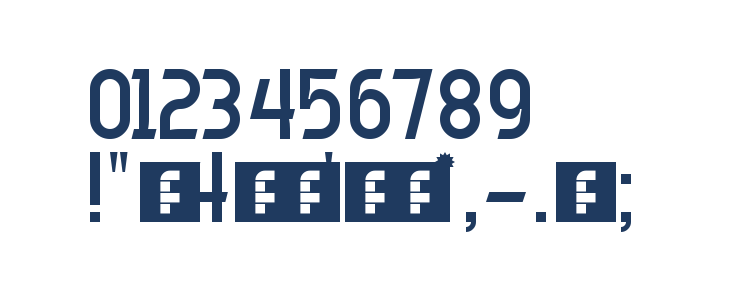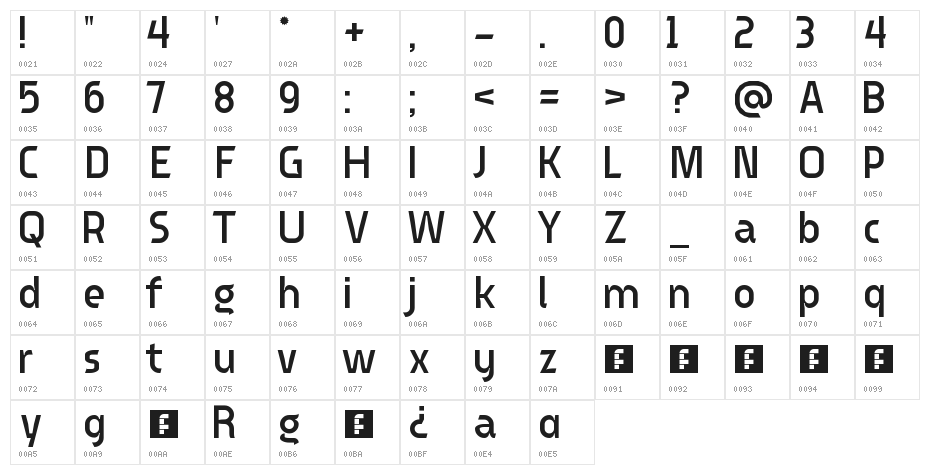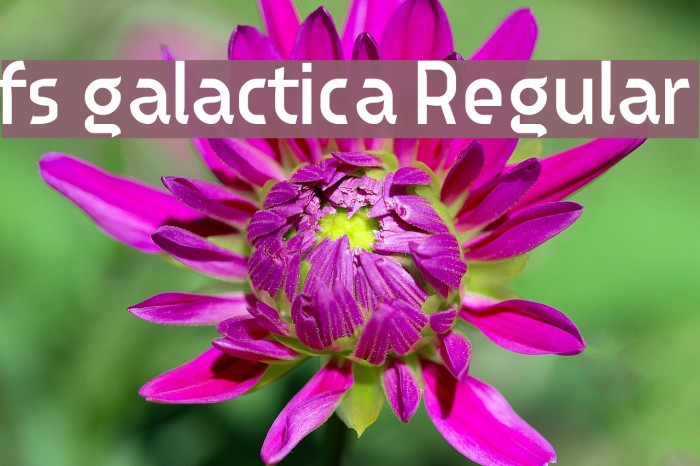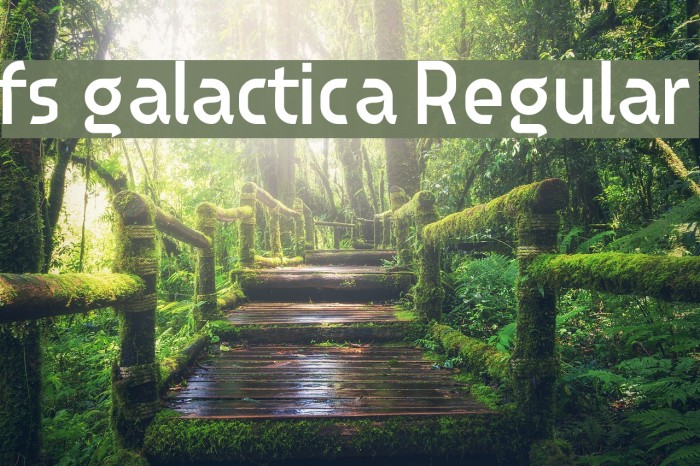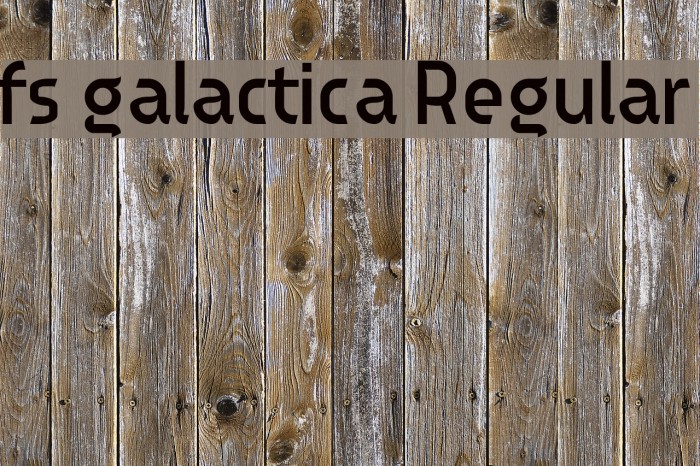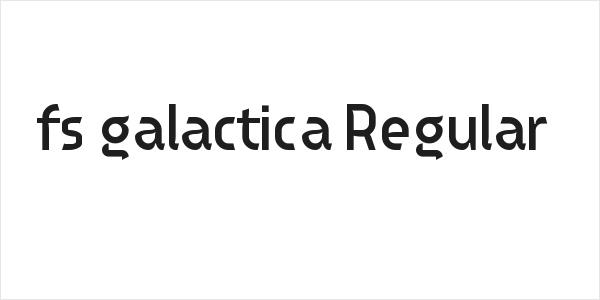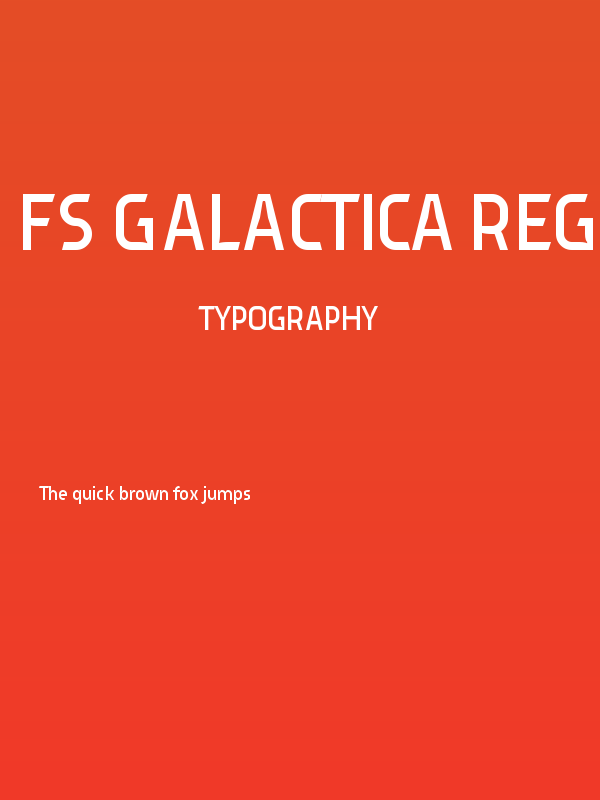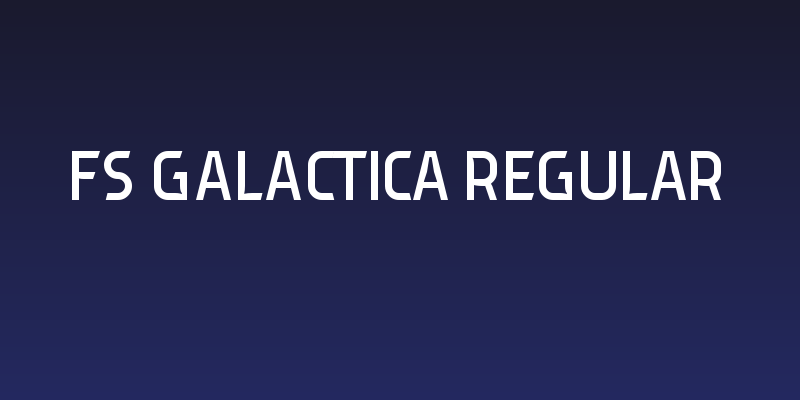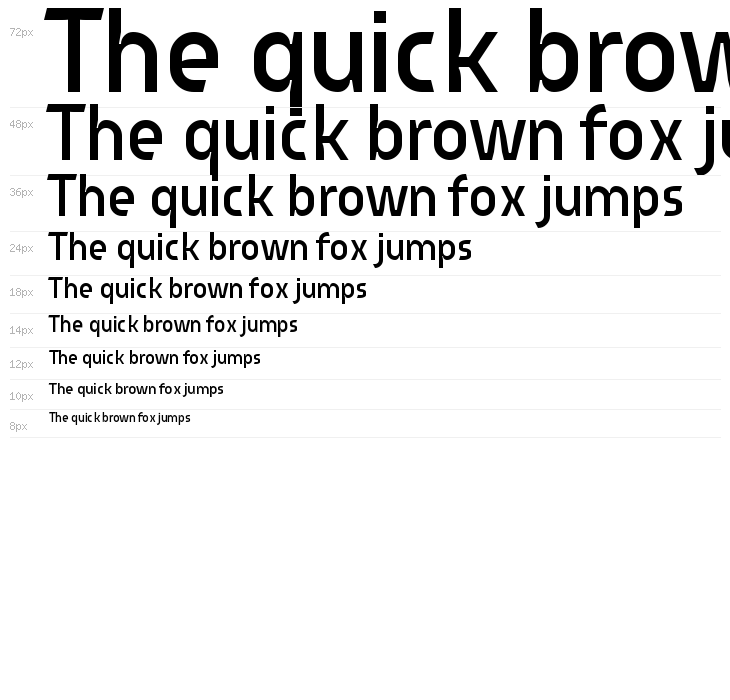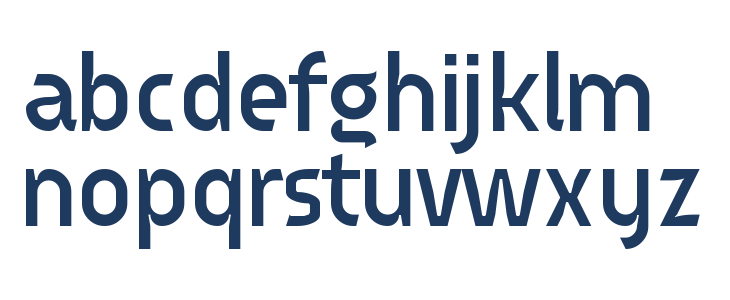
fs galactica Regular Font
fs galactica Regular Description
This font features a modern and clean sans-serif design with a geometric structure. The characters are well-balanced with a consistent stroke width, providing a uniform appearance. The uppercase letters have a slightly condensed form, while the lowercase letters maintain a more rounded and open shape. The numerals are distinct and easy to read, making them suitable for various applications. The special characters are designed with simplicity in mind, ensuring they complement the overall style of the font. This typeface is versatile and can be used in both digital and print media.